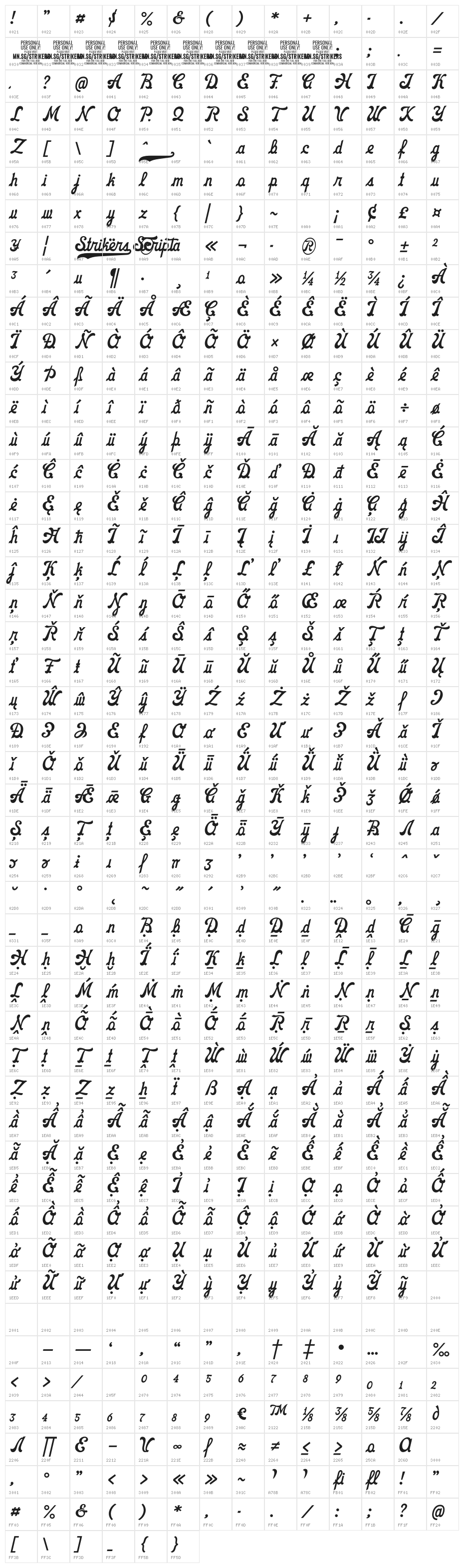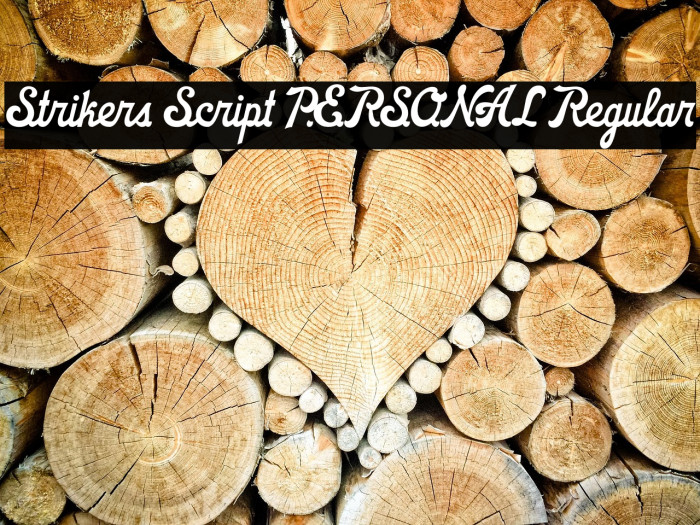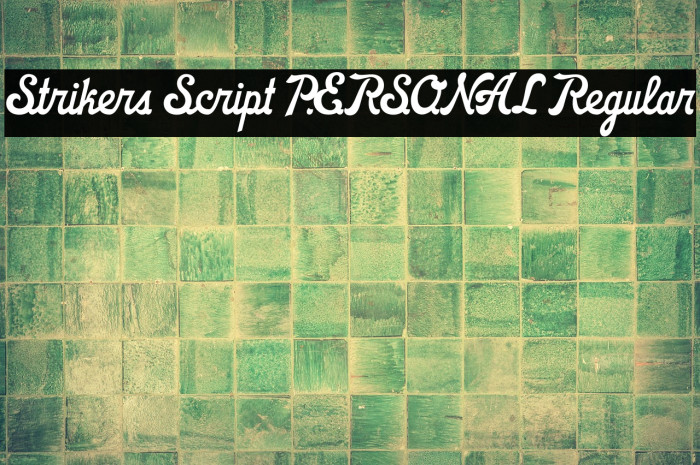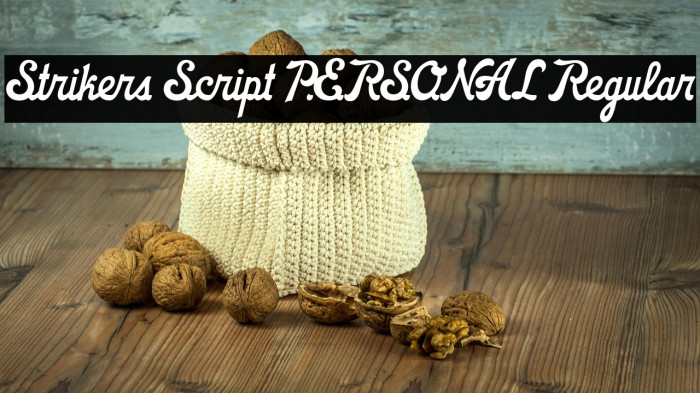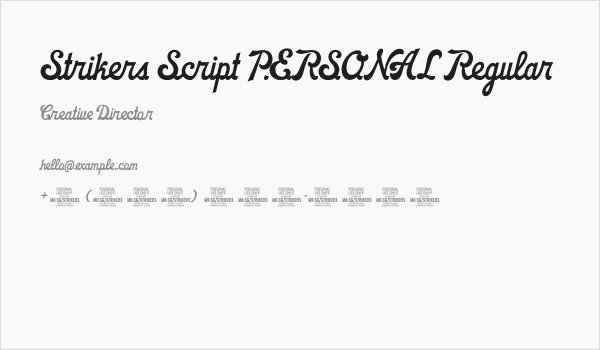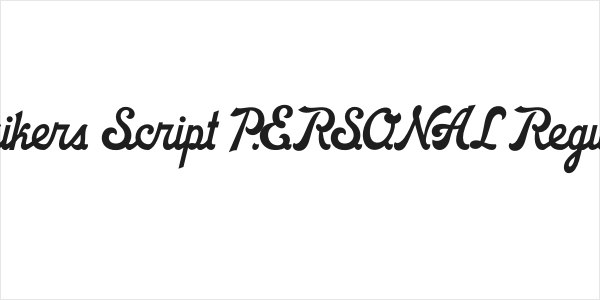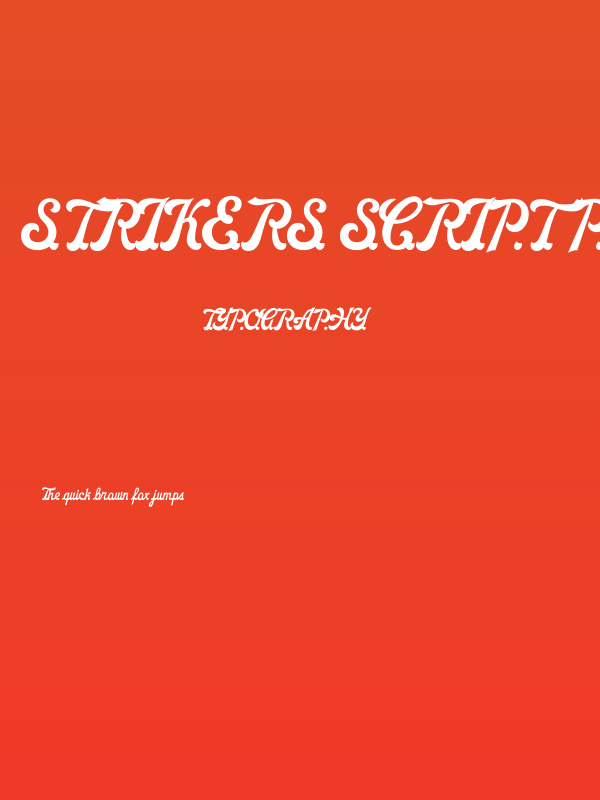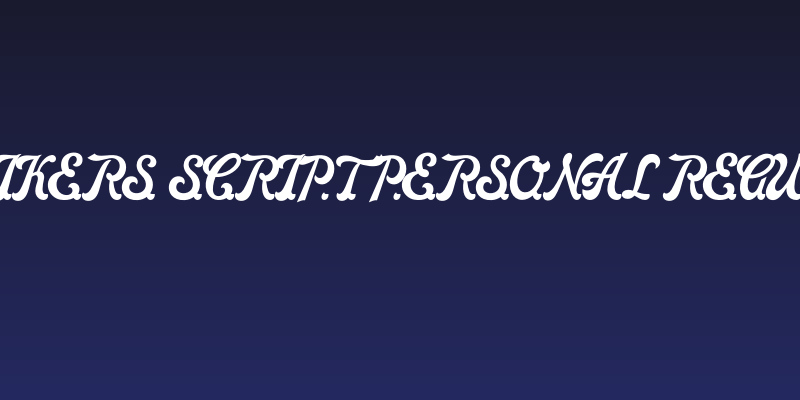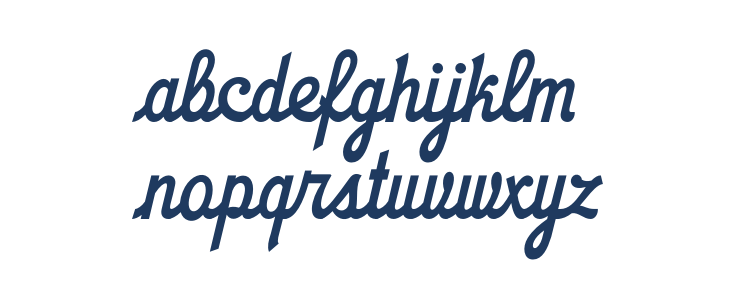
Strikers Script PERSONAL Regular Font
Strikers Script PERSONAL Regular Description
This font features a dynamic and flowing script style that captures a sense of movement and energy. The characters are interconnected with smooth, cursive strokes, creating a cohesive and elegant appearance. The uppercase letters are bold and prominent, while the lowercase letters maintain a consistent flow with slightly less weight. The font includes a full set of numerals and a variety of special characters, all designed with the same fluidity. Its overall appearance is both stylish and legible, making it suitable for various creative applications.